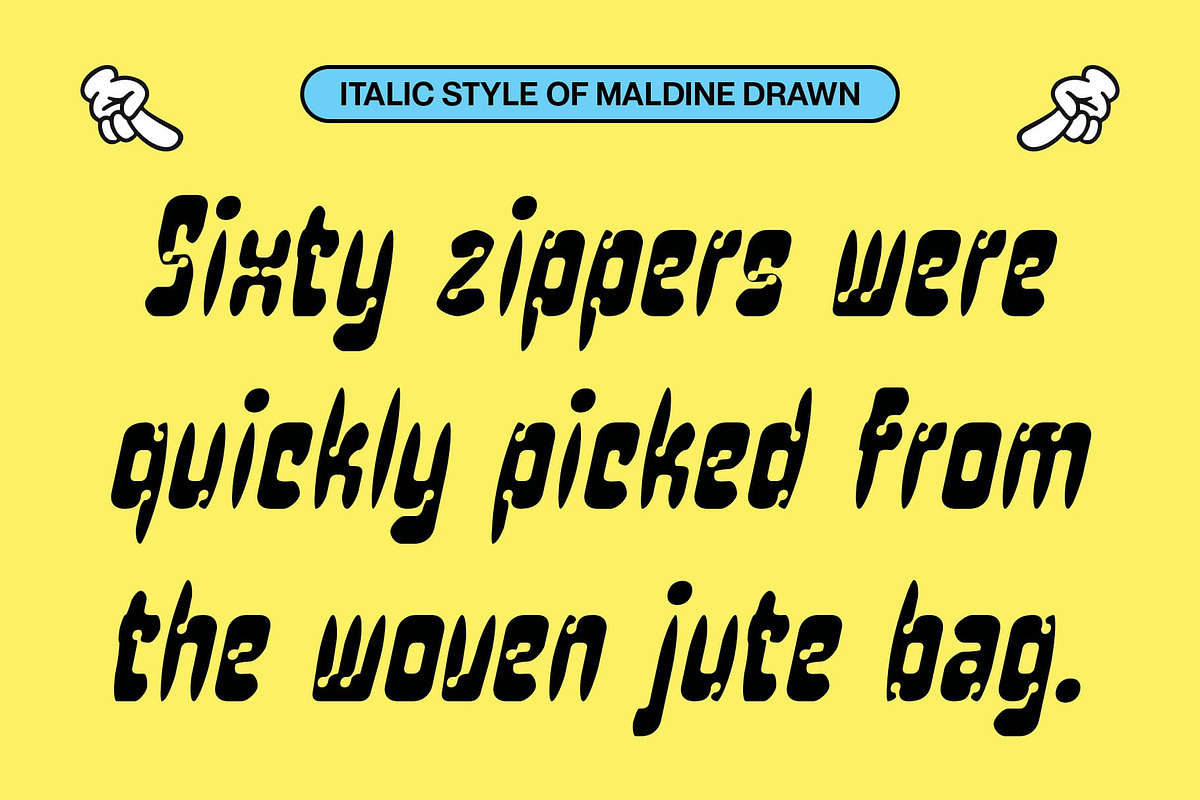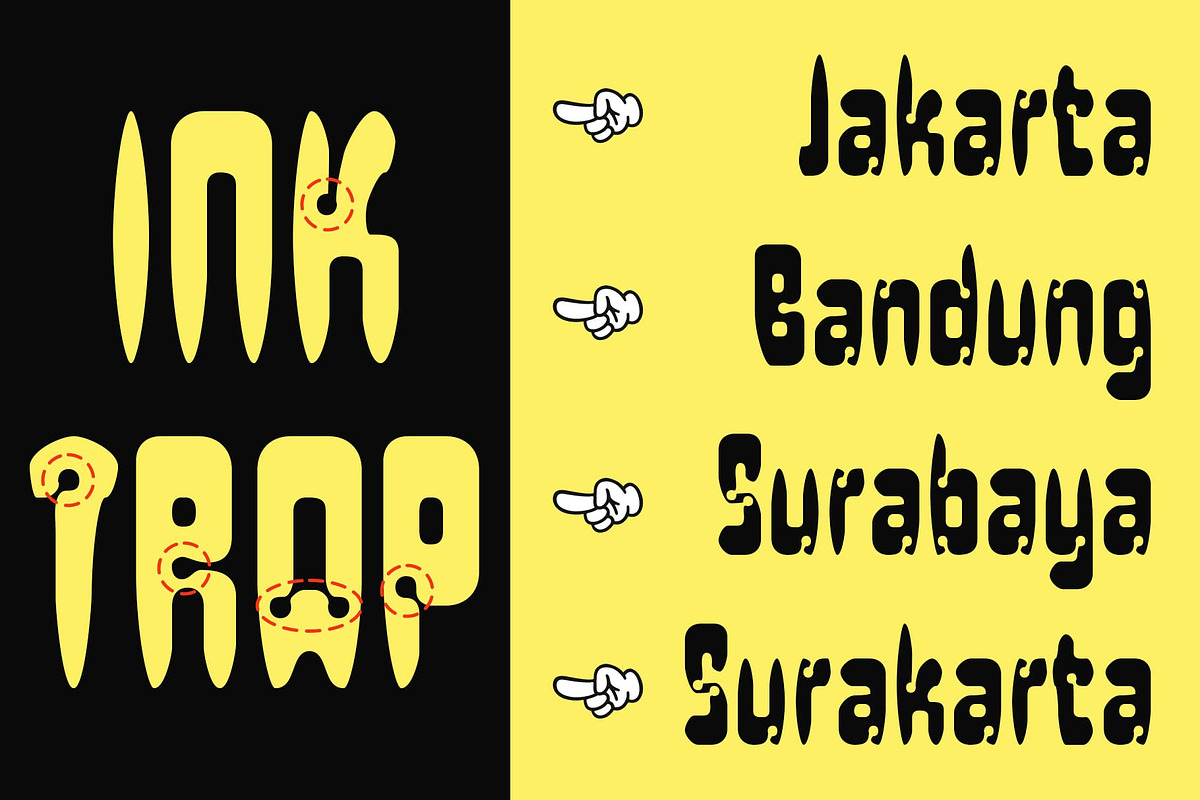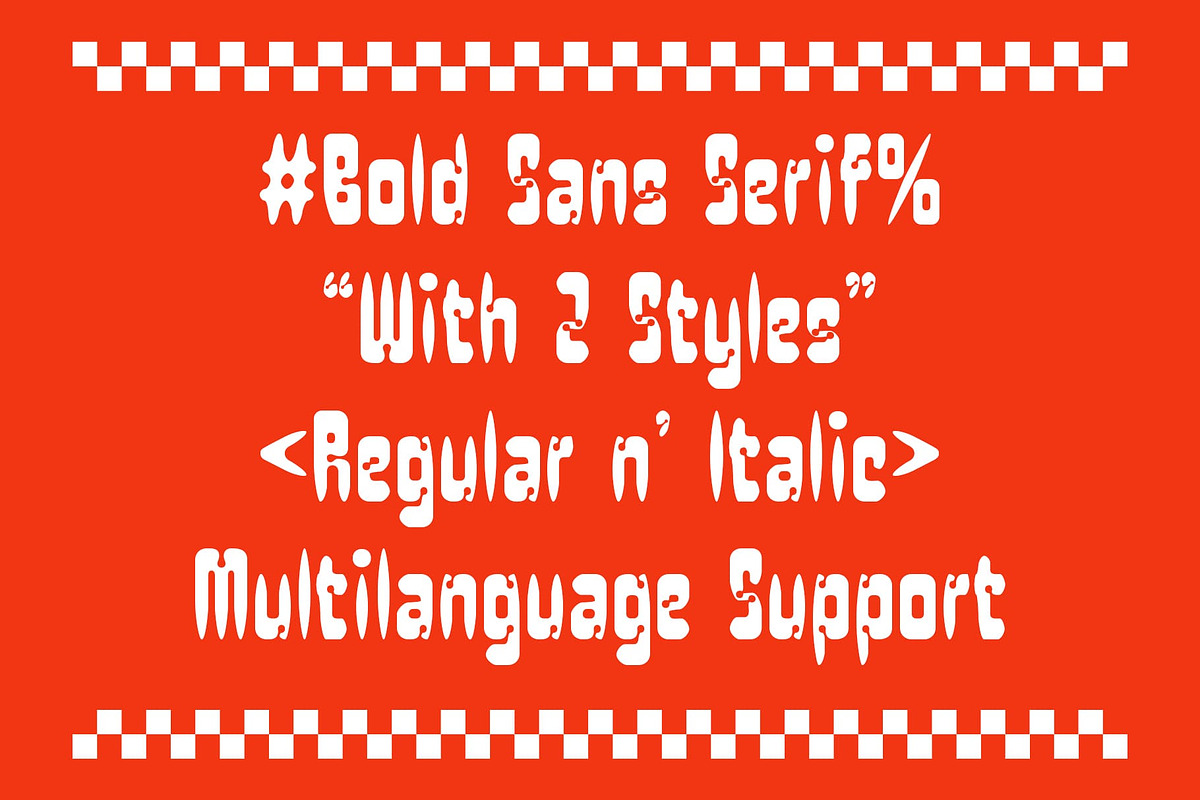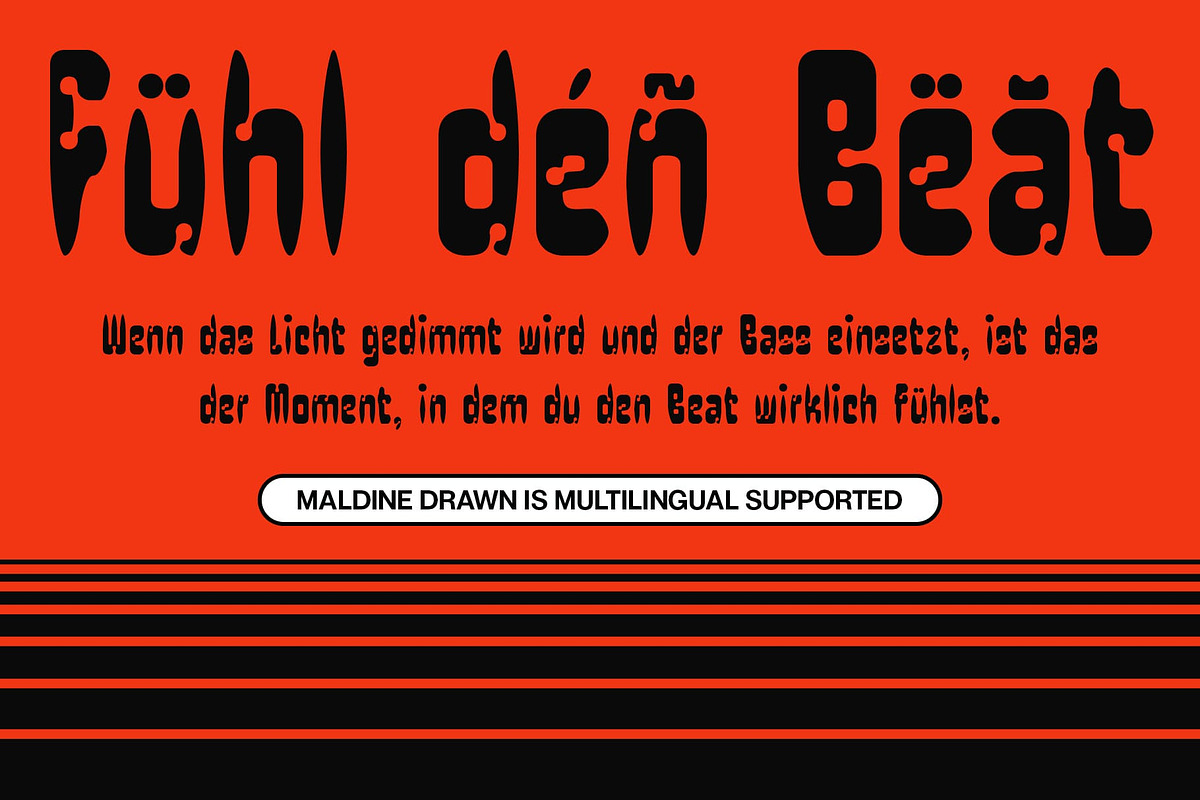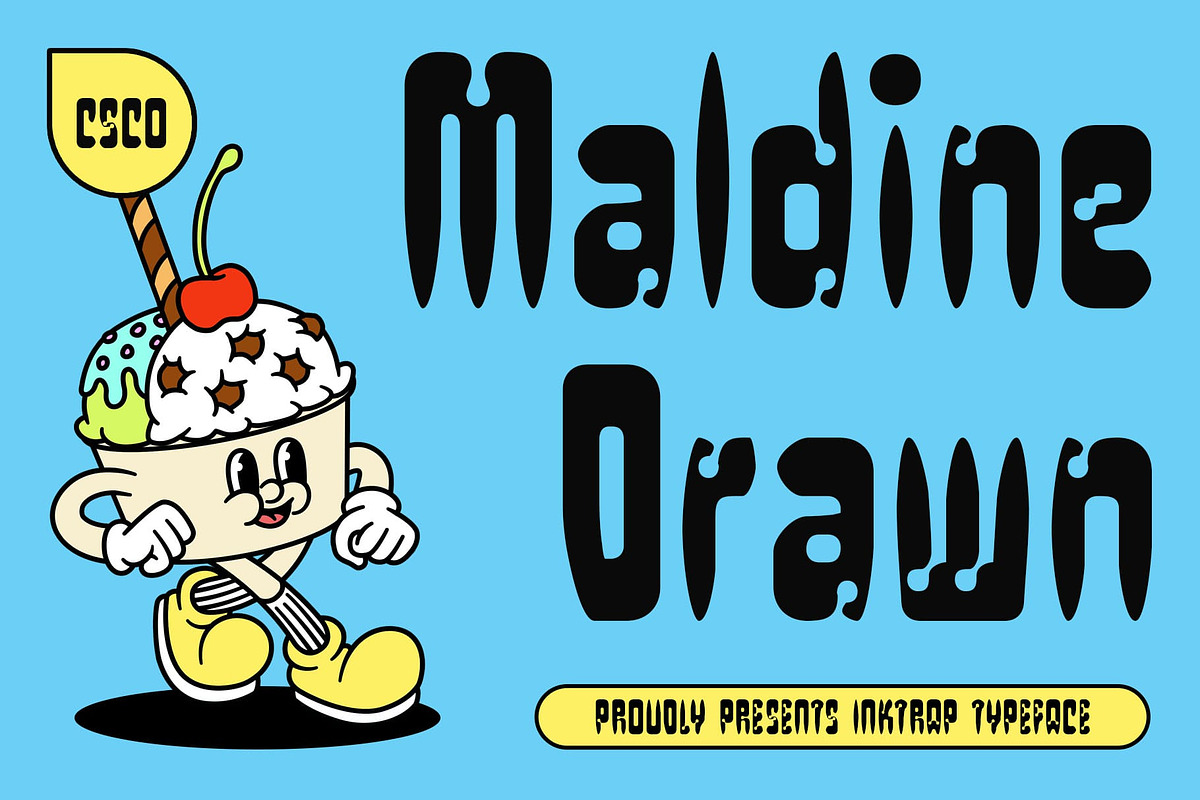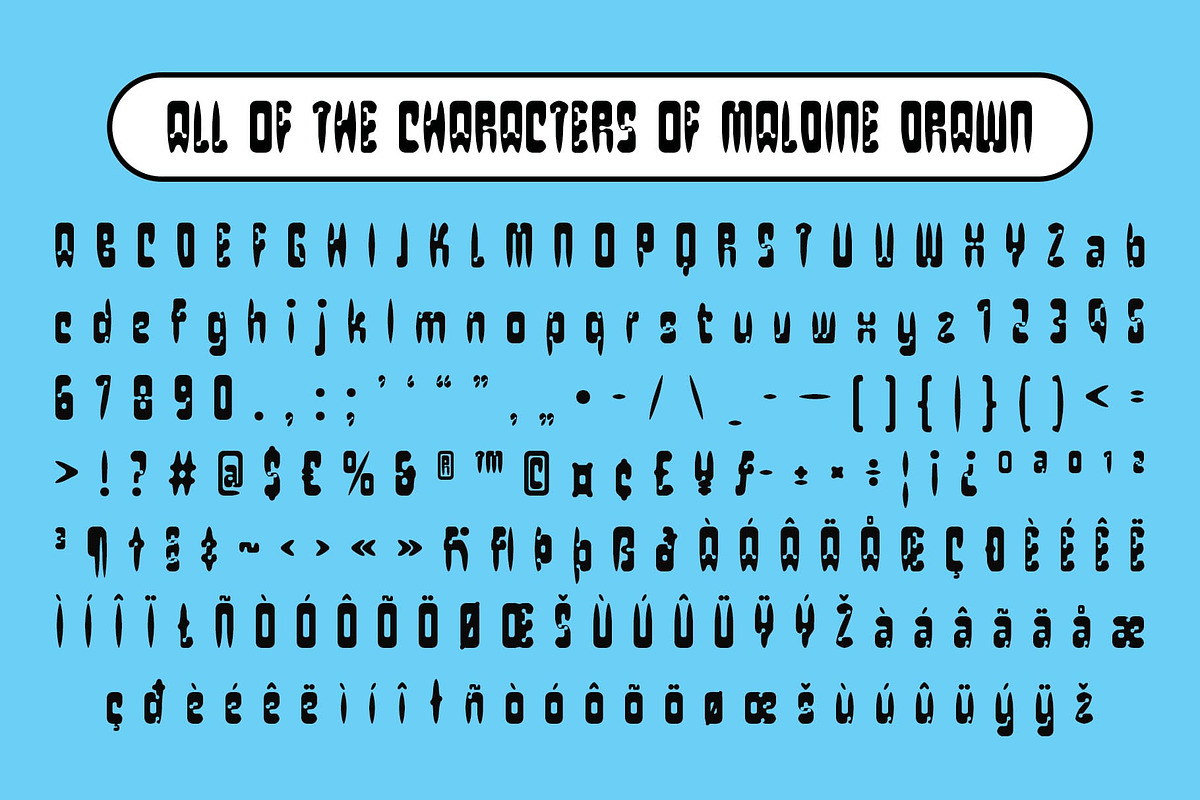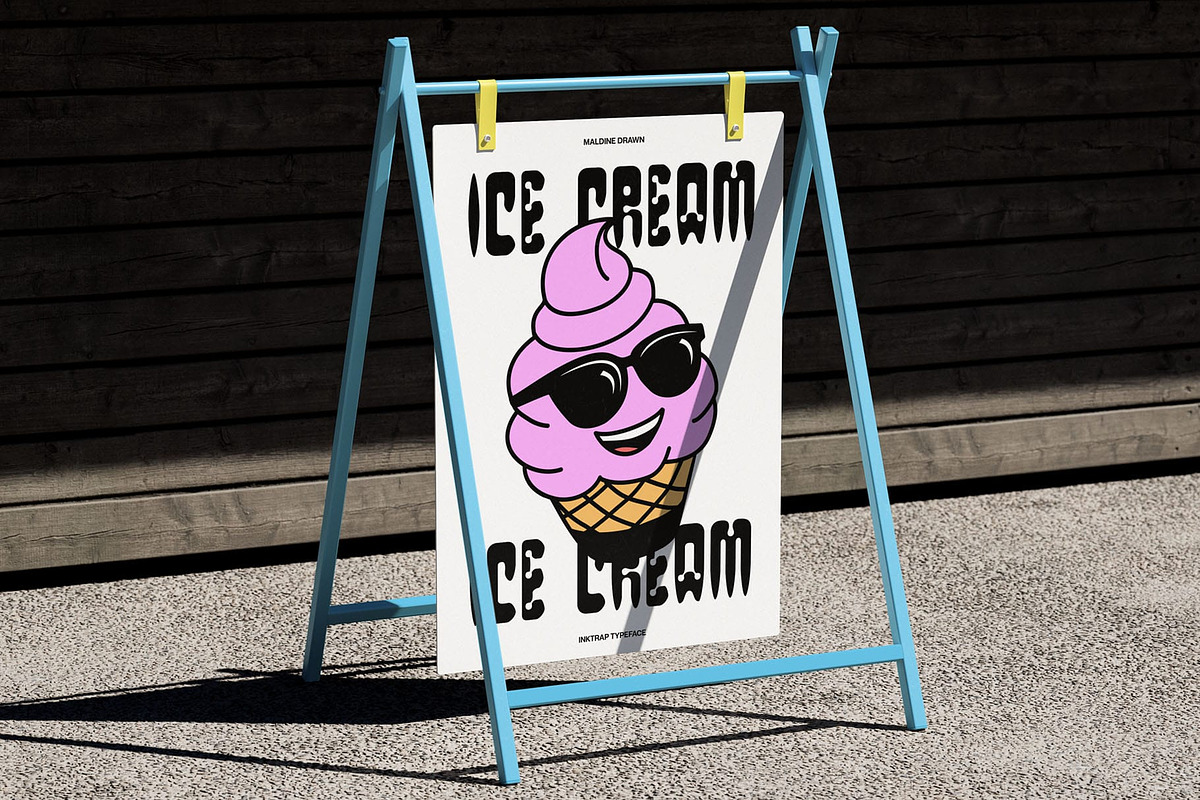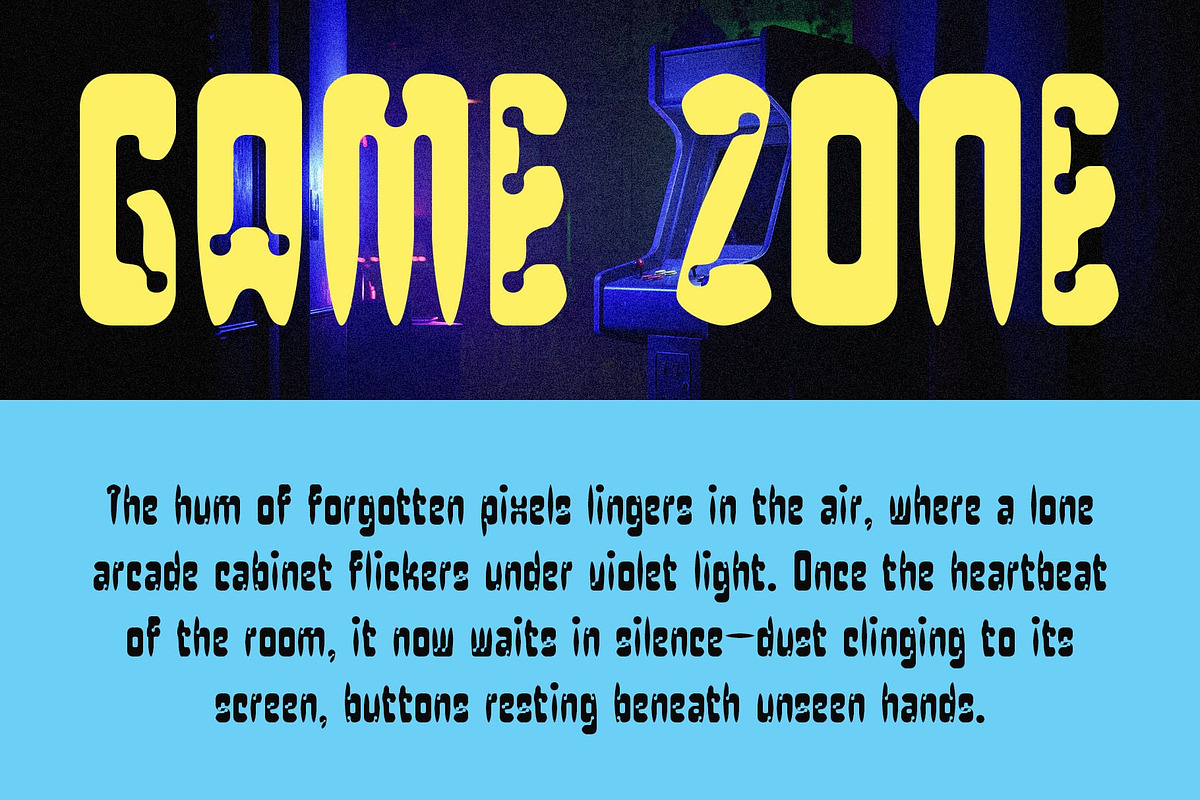
Maldine Drawn
Maldine Drawn Font – A Sharp Modern Touch with Handcrafted Soul
Modern Sans Serif with Inktrap Precision Maldine Drawn is a modern sans serif font that combines a condensed form with distinctive inktrap details. These inktraps—subtle notches in the joints of strokes—add both technical sharpness and improved legibility, making the font efficient and highly functional in tight spaces. Its slim, vertical structure delivers a clean and confident tone suitable for impactful display uses.
Drawn Effect for Organic Character What sets Maldine Drawn apart is its hand-drawn texture, introducing imperfect, organic lines that contrast its technical structure. This drawn effect brings a sense of human touch, creativity, and expressive charm, softening the mechanical appearance and infusing the font with a raw, artistic personality.
Space-Efficient Yet Visually Bold With its condensed shape, Maldine Drawn ensures space efficiency without sacrificing design strength. The combination of narrow proportions, visible inktraps, and textured details creates a look that is compact yet bold, making it perfect for headlines, titles, and editorial layouts where both clarity and style are essential.
Ideal for Creative and Editorial Projects Whether you’re designing for modern branding, digital displays, or experimental posters, Maldine Drawn delivers a contemporary, unique feel that blends functionality with handcrafted expression. It’s a typeface that balances discipline with creativity, perfect for designs that need to feel distinctive, precise, and personal.